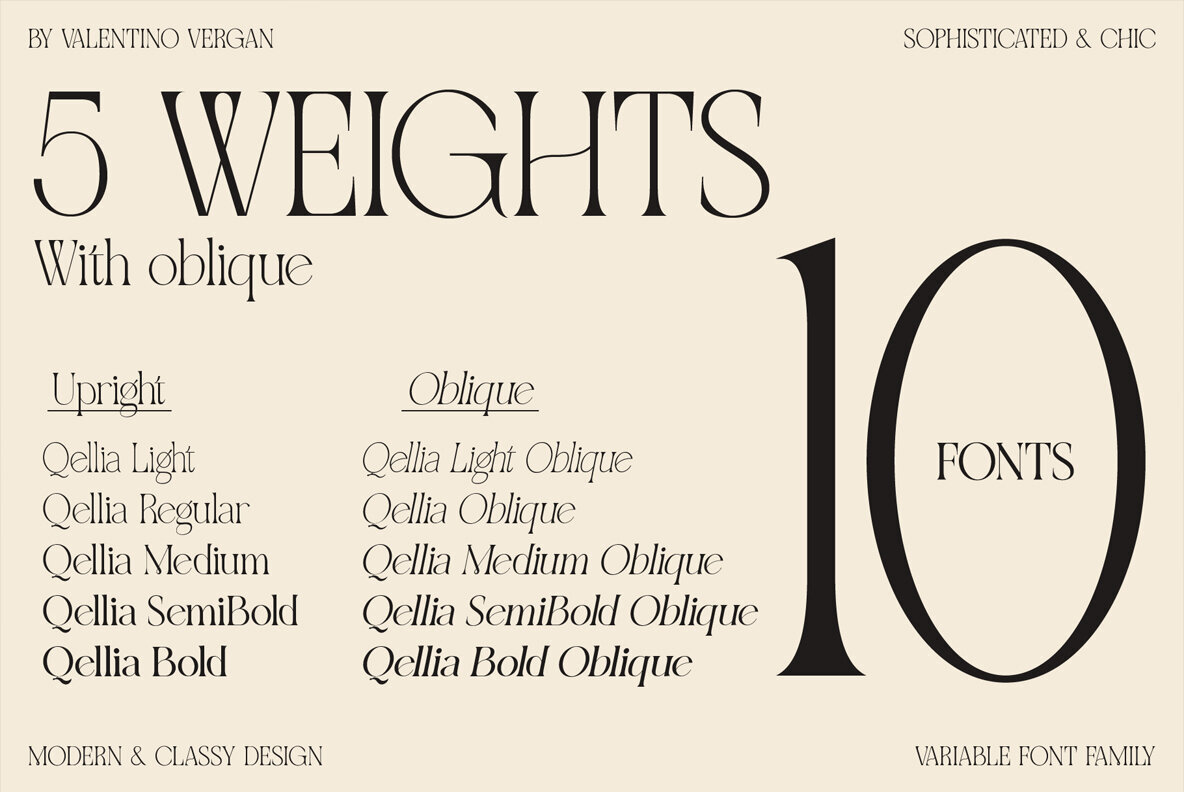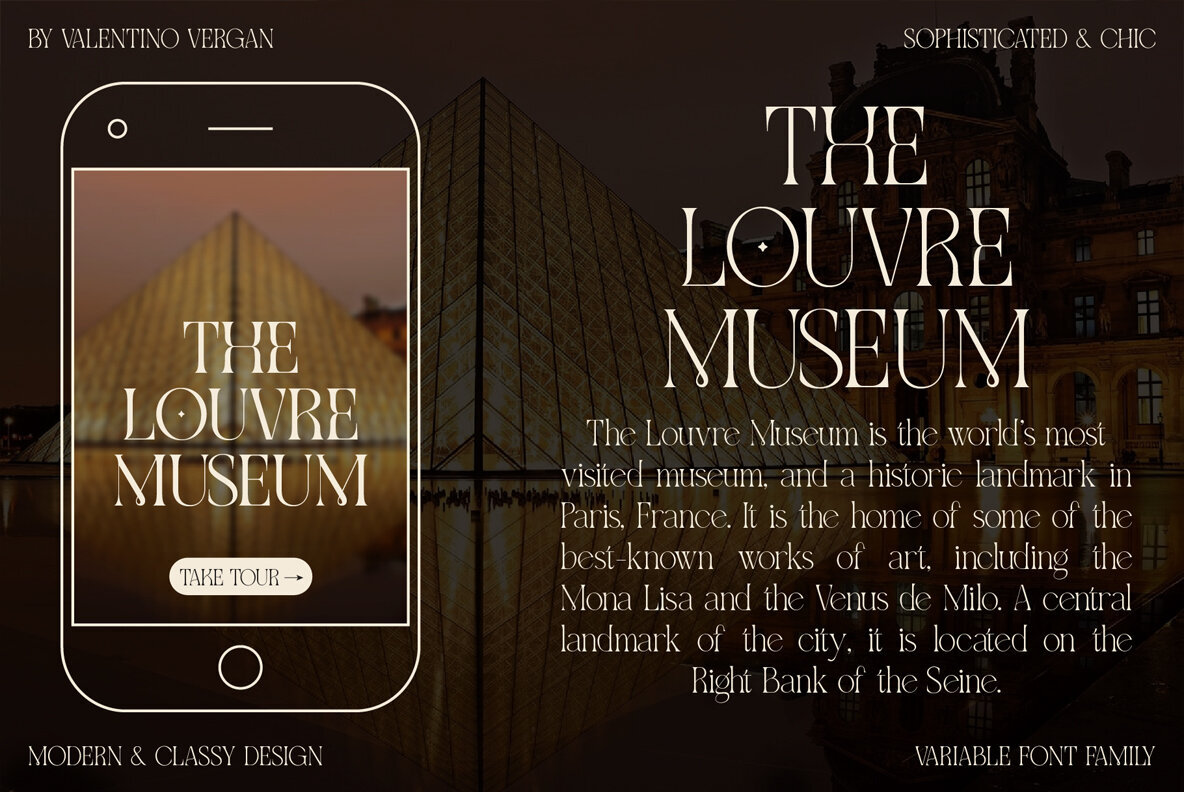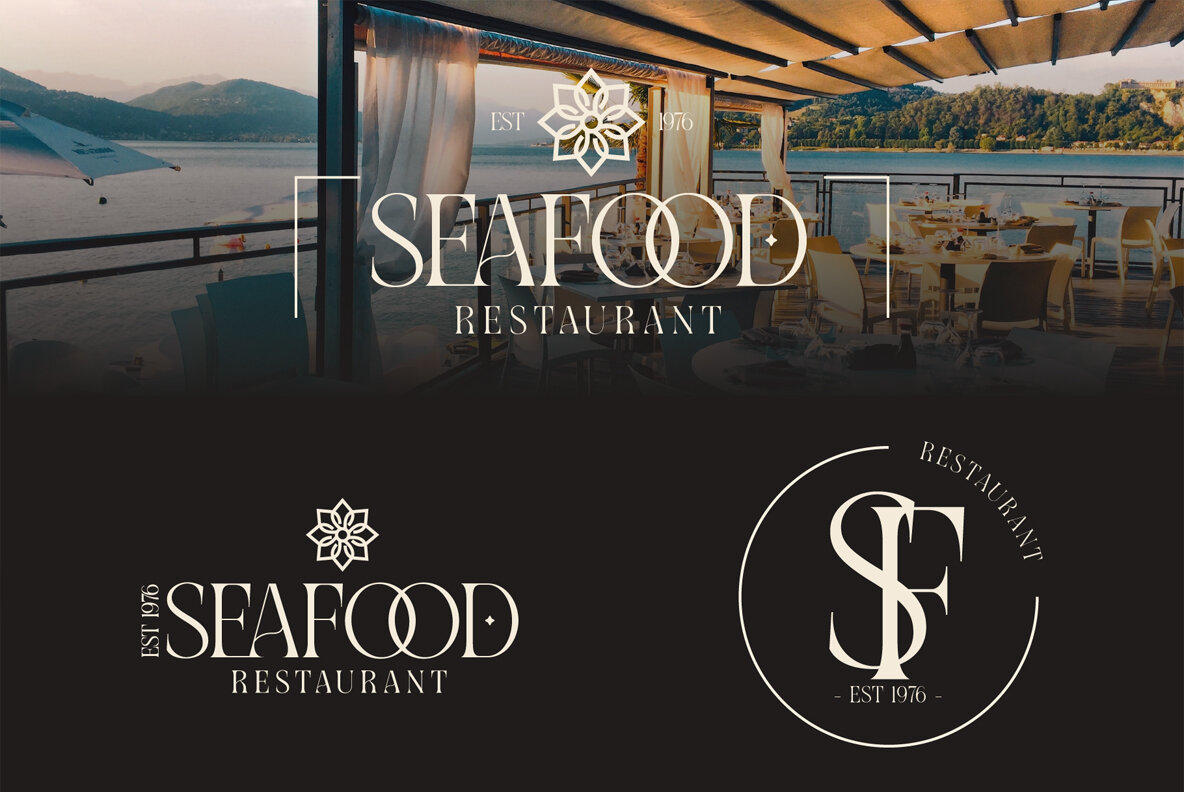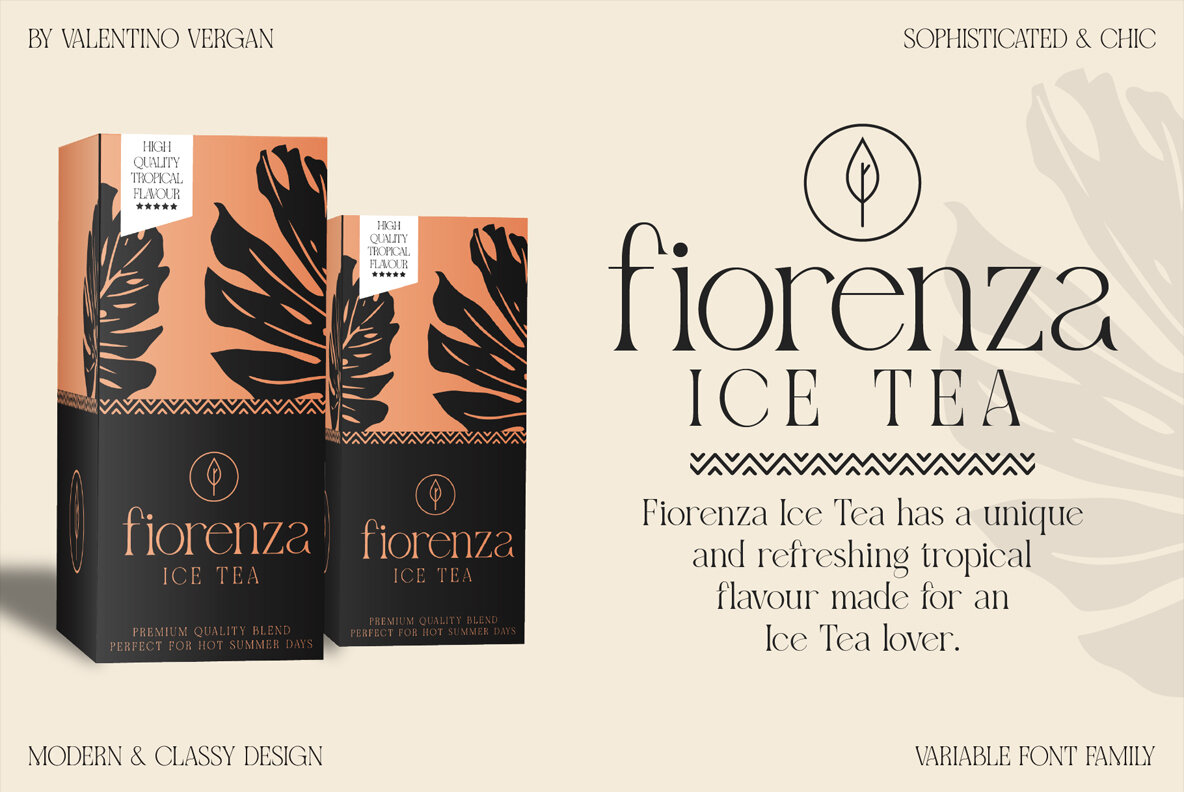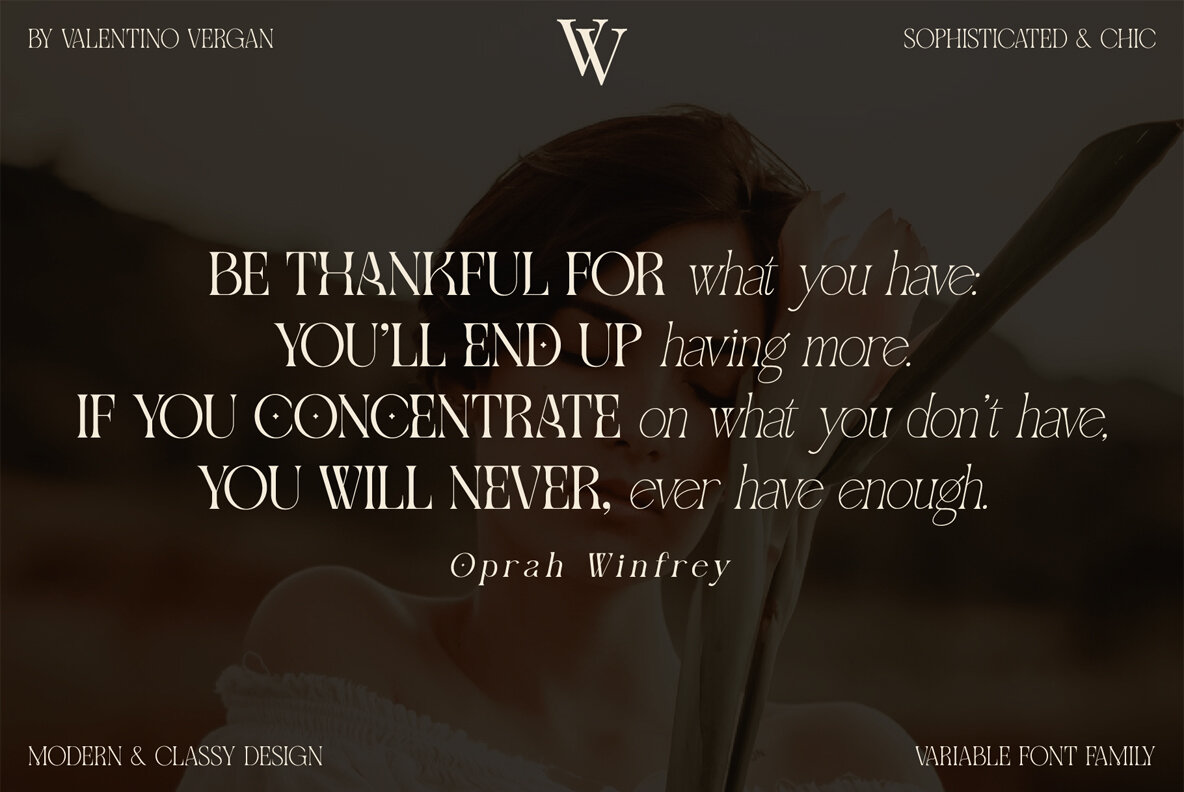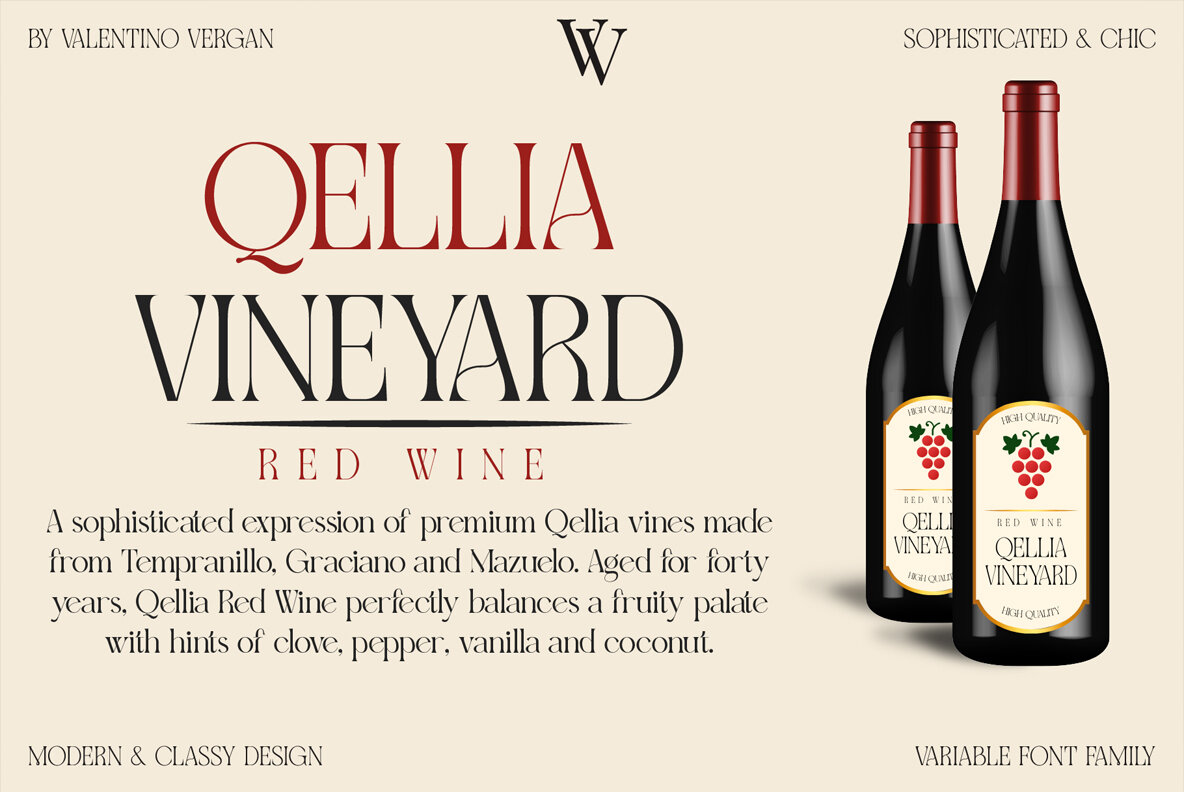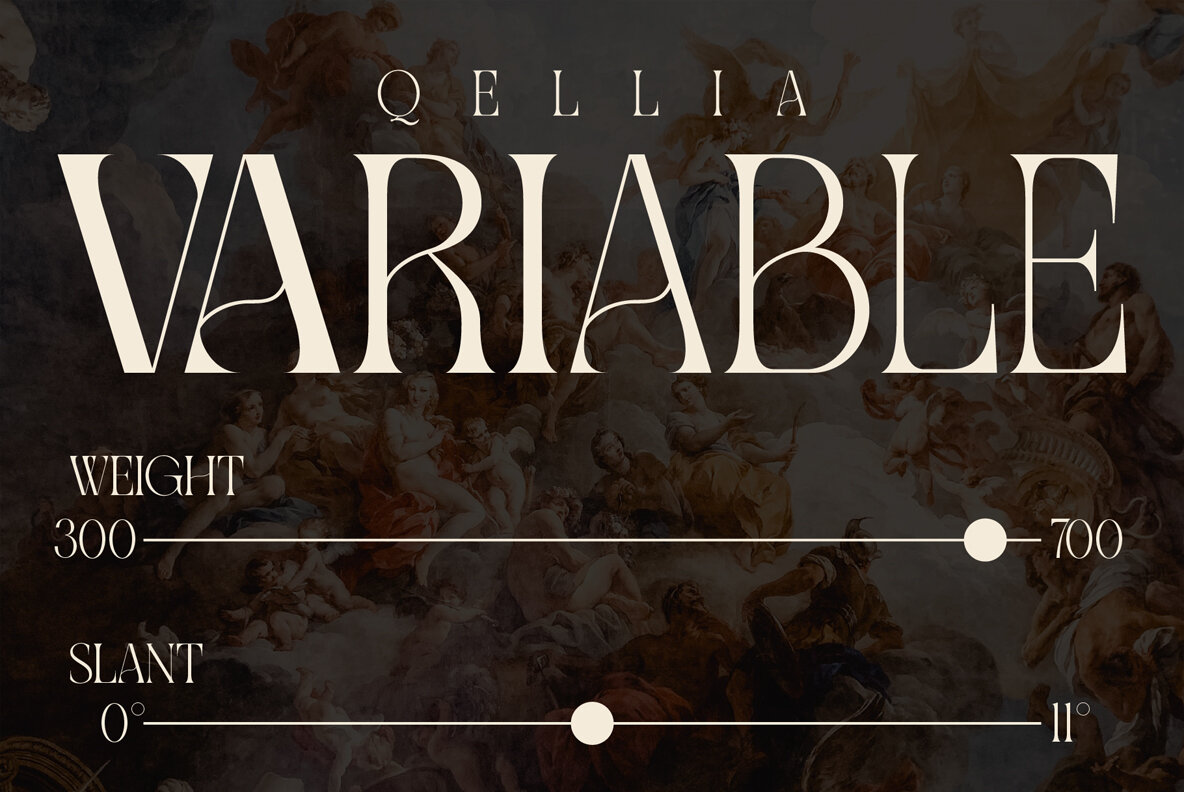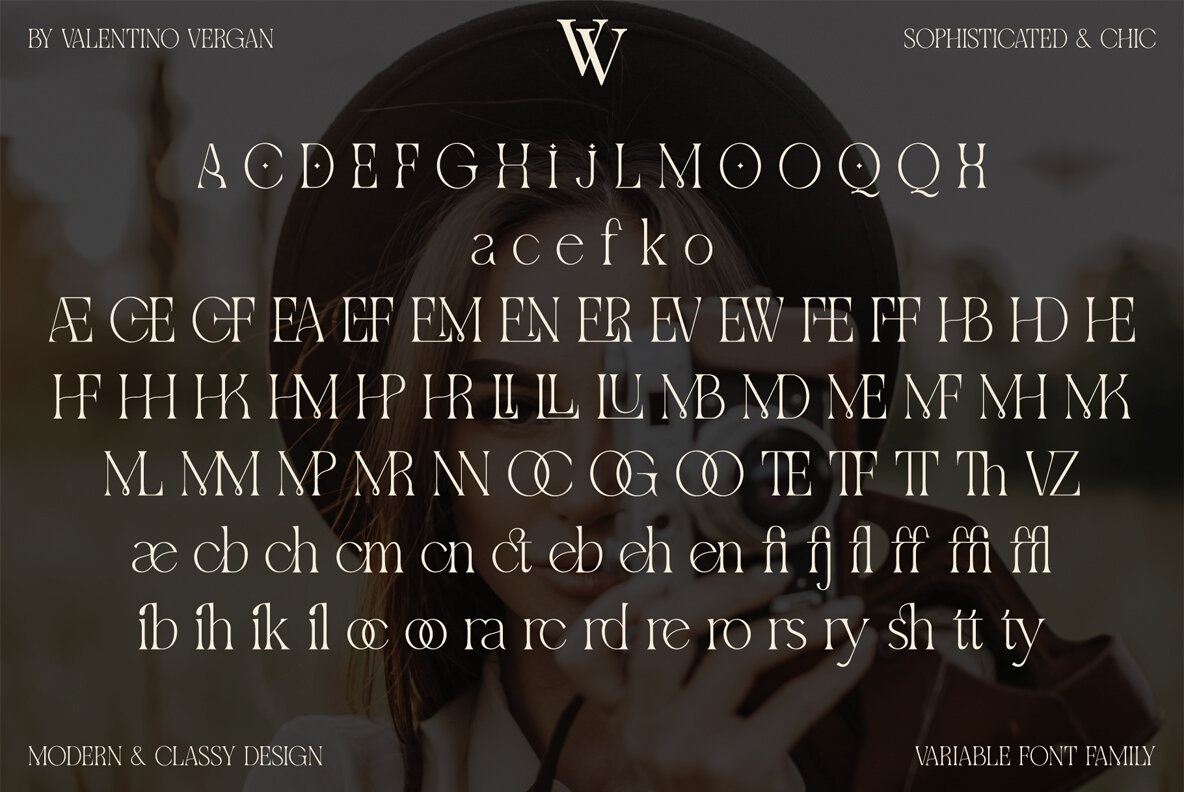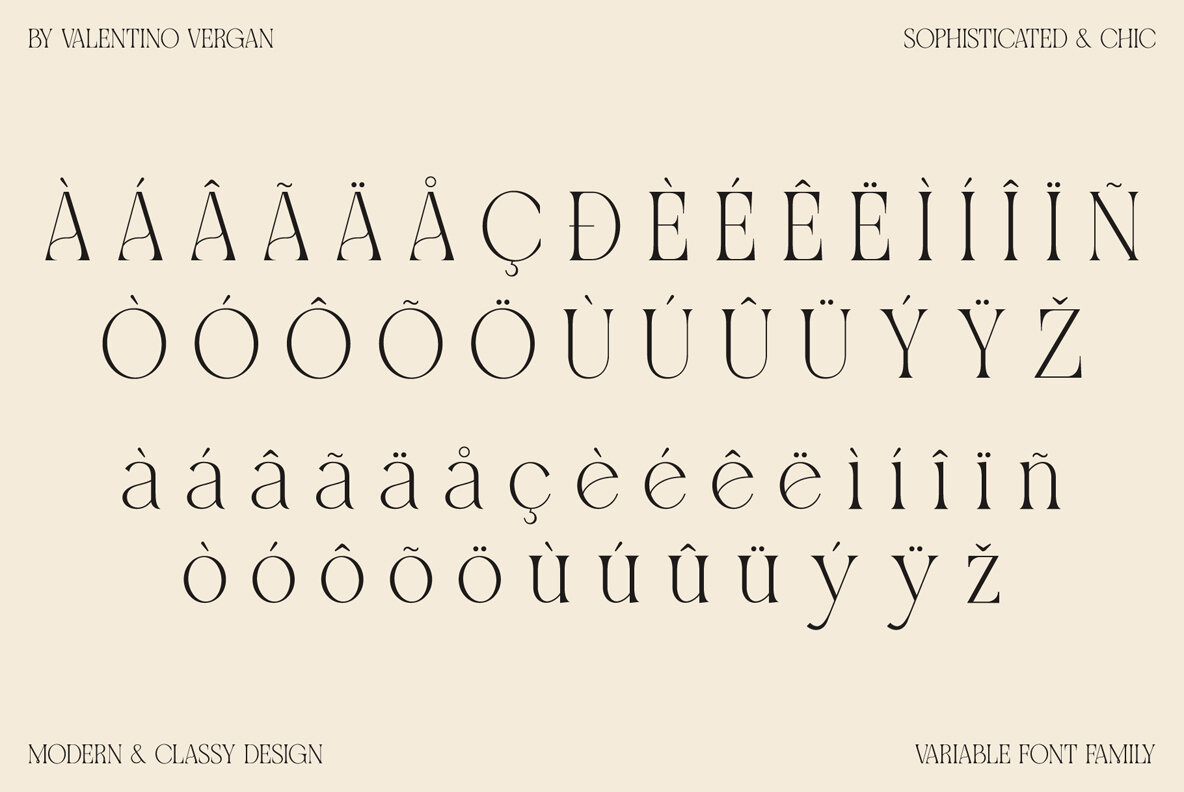
Qellia Font
Qellia is a modern typeface with lots of style and creativity. The Qellia typeface is an exquisitely elegant svelte serif, with beautiful ligatures and unique alternate characters. The Qellia typeface is a sophisticated update on the bold old-style serifs, commonly known as soft-serve. The tall and slim nature of the Qellia typeface makes it very modern and classy. The Qellia typeface also has long stems which gives the font a striking yet contemporary nostalgic look. The Qellia typeface comes in two styles, Regular and Oblique.
The Qellia typeface comes with creative ligatures and unique alternative characters, these unique characters are great for creating custom modern feminine logo designs. The Qellia typeface also comes with multilingual support for languages such as: Danish, English, Finnish, French, German, German (Switzerland), Norwegian Bokmål, Norwegian Nynorsk, Portuguese, Spanish, Swedish, Swiss German.
The Qellia typeface has a unique and sophisticated design, this allows the typeface to cover a wide range of projects such as: branding, mastheads, magazines, feminine logos, facebook banners, wedding invitations, Instagram posts, websites, blog posts, pull quotes, editorials, product packaging, trendy social media posts, advertisements and much more.
If you a looking for something modern, nostalgic and chic for you next project, Qellia is the font for you.
QELLIA INCLUDES A FULL SET OF:
- Uppercase and lowercase letters
- Numbers
- Punctuation
- Alternate characters
- Multilingual Symbols
HERE’S WHAT’S NEW
Expanded the font from 1 weights to 5 weights.
Created a new variable font, which includes all the weights & slants.
Made adjustments to some of the letters, punctuations and symbols.
Adjusted kerning to the basic character set.
Updated Artwork
Made adjustments to some of the alternative uppercase and lowercase letters..
Adjusted the Kerning.
Added some new multilingual letters.
Add a new set of uppercase and lowercase ligature.